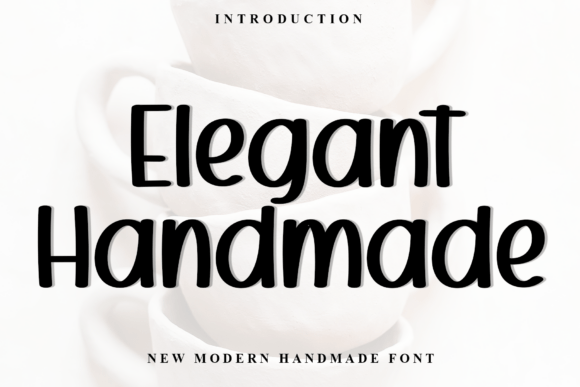
Elegant Handmade Font: Adding a Touch of Warmth and Whimsy to Your Designs
Are you looking for a font that can add a personal touch to your designs? Look no further than the Elegant Handmade font. This casual and creative font is perfect for designers and crafters who want to infuse their work with warmth and friendliness. In this article, we’ll explore the features and benefits of the Elegant Handmade font, and how it can elevate your designs to the next level.
The Charm of Handmade Fonts
Handmade fonts have a unique charm that sets them apart from more traditional fonts. They have a personal, hand-drawn quality that can add a touch of whimsy and playfulness to any design. The Elegant Handmade font is no exception. Its round, playful strokes create a relaxed and approachable feel that’s perfect for personal projects, invitations, and social media graphics.
Key Features of Elegant Handmade Font
The Elegant Handmade font has several key features that make it stand out from other fonts. Here are a few:
- Hand-Drawn Aesthetic: The font has a charming, hand-drawn aesthetic that adds a fun and unique touch to any design.
- Playful Strokes: The font’s round, playful strokes create a relaxed and approachable feel that’s perfect for personal projects and social media graphics.
The Elegant Handmade font is perfect for designers and crafters who want to add a personal touch to their work. Here are a few ways you can use this font:
- Personal Projects: Use the Elegant Handmade font to add a personal touch to your personal projects, such as photo albums, scrapbooking, and card making.
- Invitations: The font’s playful and whimsical feel makes it perfect for invitations, such as birthday parties, baby showers, and weddings.
- Social Media Graphics: Use the Elegant Handmade font to create engaging social media graphics that will help you stand out from the crowd.
Tips for Using Elegant Handmade Font
Here are a few tips for using the Elegant Handmade font:
- Pair with Other Fonts: The Elegant Handmade font pairs well with other fonts, such as sans serif fonts and script fonts. Experiment with different pairings to find the one that works best for your design.
- Use in Headlines and Body Text: The font is versatile and can be used in both headlines and body text. Use it to create a cohesive look throughout your design.
- Experiment with Colors: The Elegant Handmade font looks great in a variety of colors. Experiment with different colors to find the one that works best for your design.